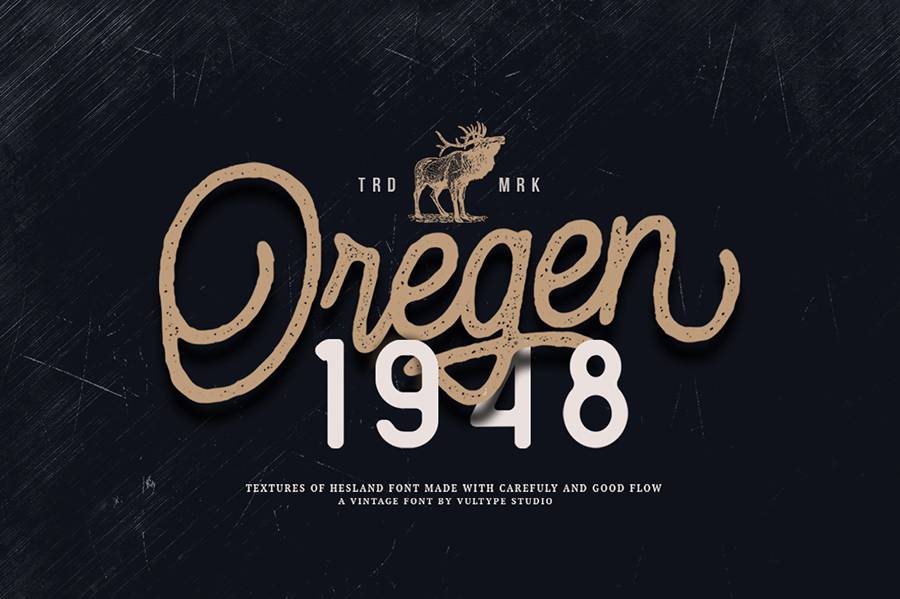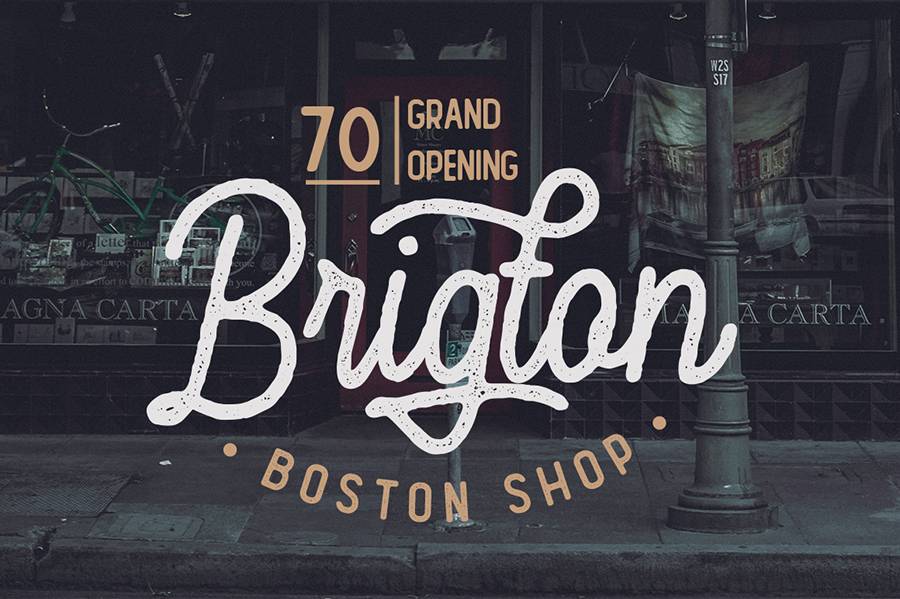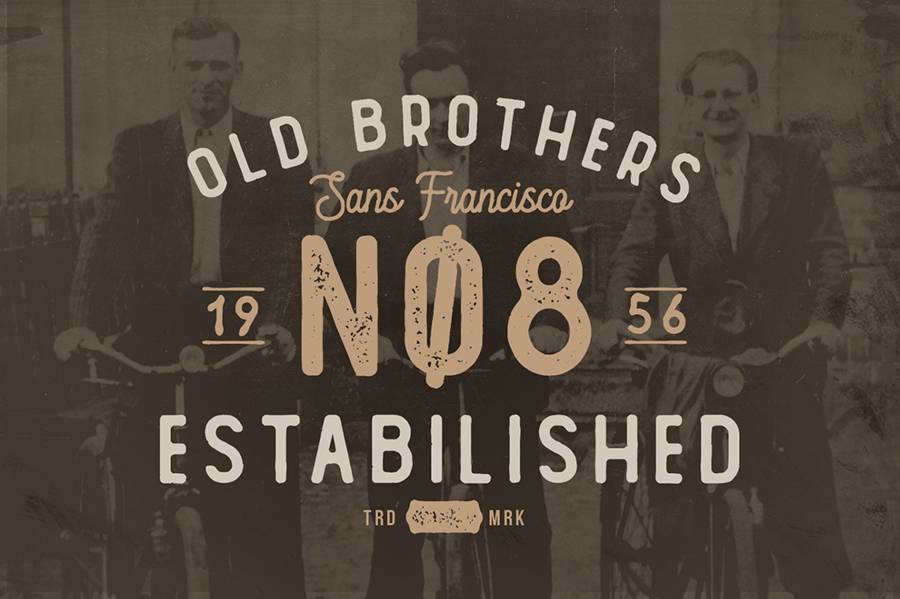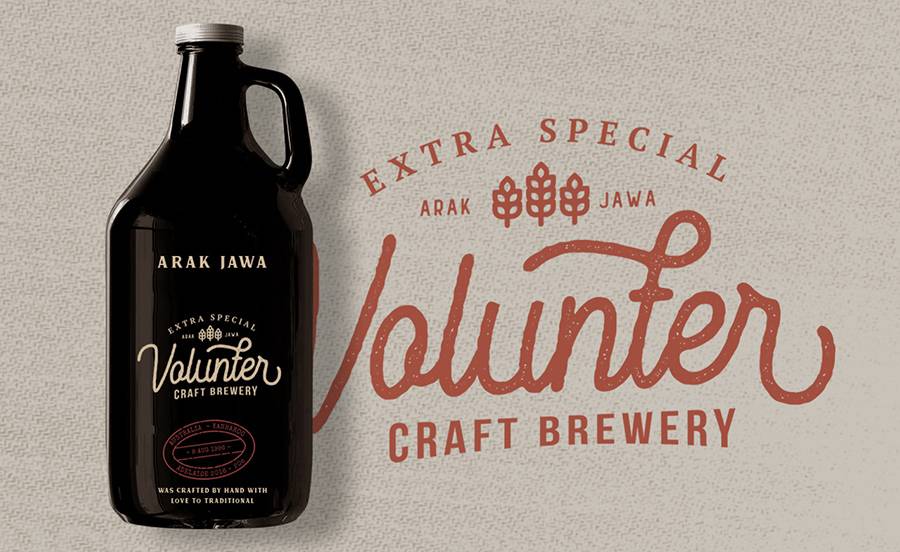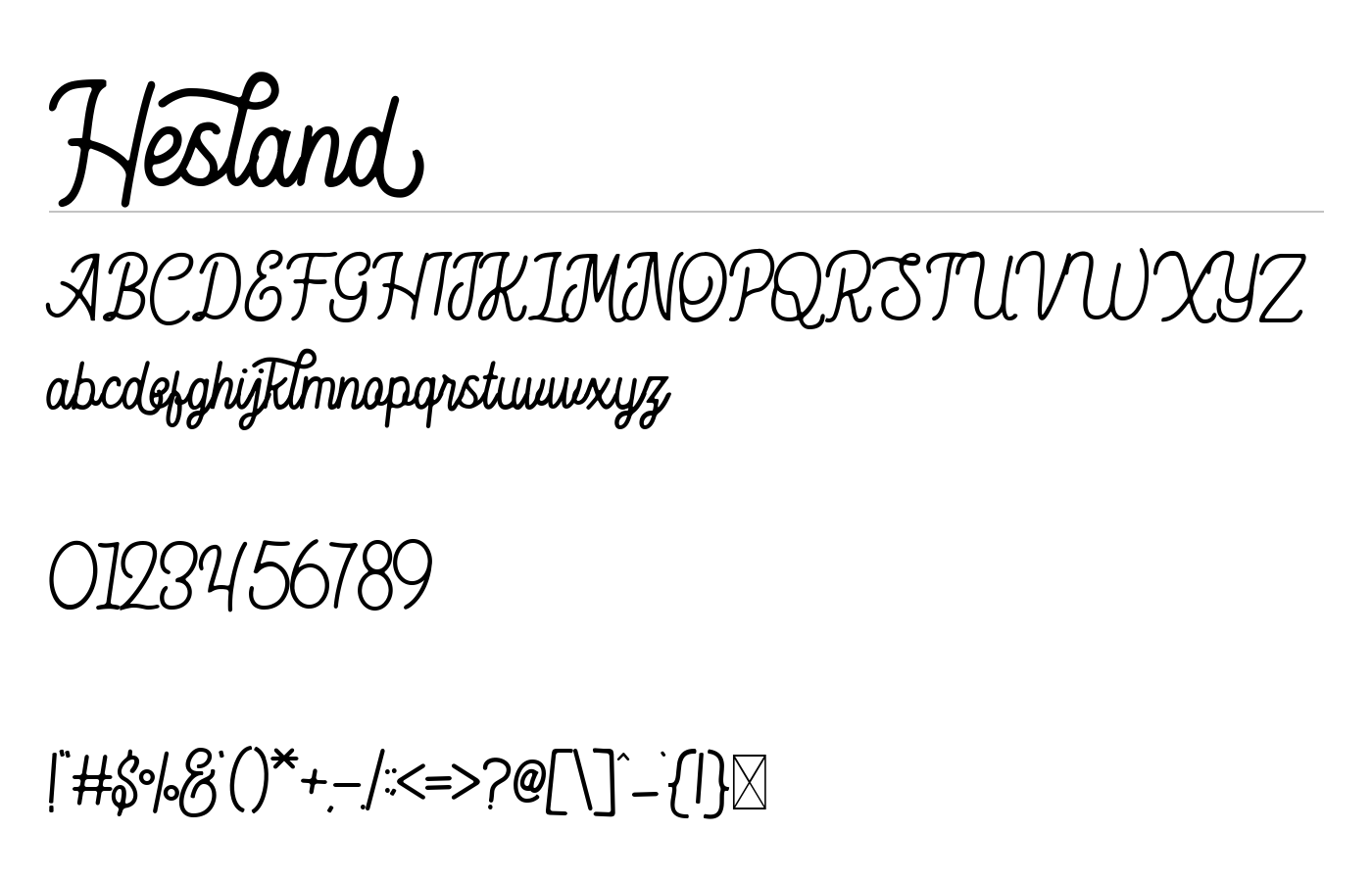
Hesland Vintage Script is a graceful, light-weight script font with elegant, flowing letterforms that evoke a nostalgic, handcrafted feel. Its slender strokes and slightly condensed shapes create a refined yet approachable style, perfect for vintage-inspired branding, packaging, and invitations. This font works beautifully for projects looking to capture a charming, retro vibe with a modern touch.
Hesland Vintage Script Font
About Hesland Vintage Script Font
| Font family | Hesland Vintage Script Font |